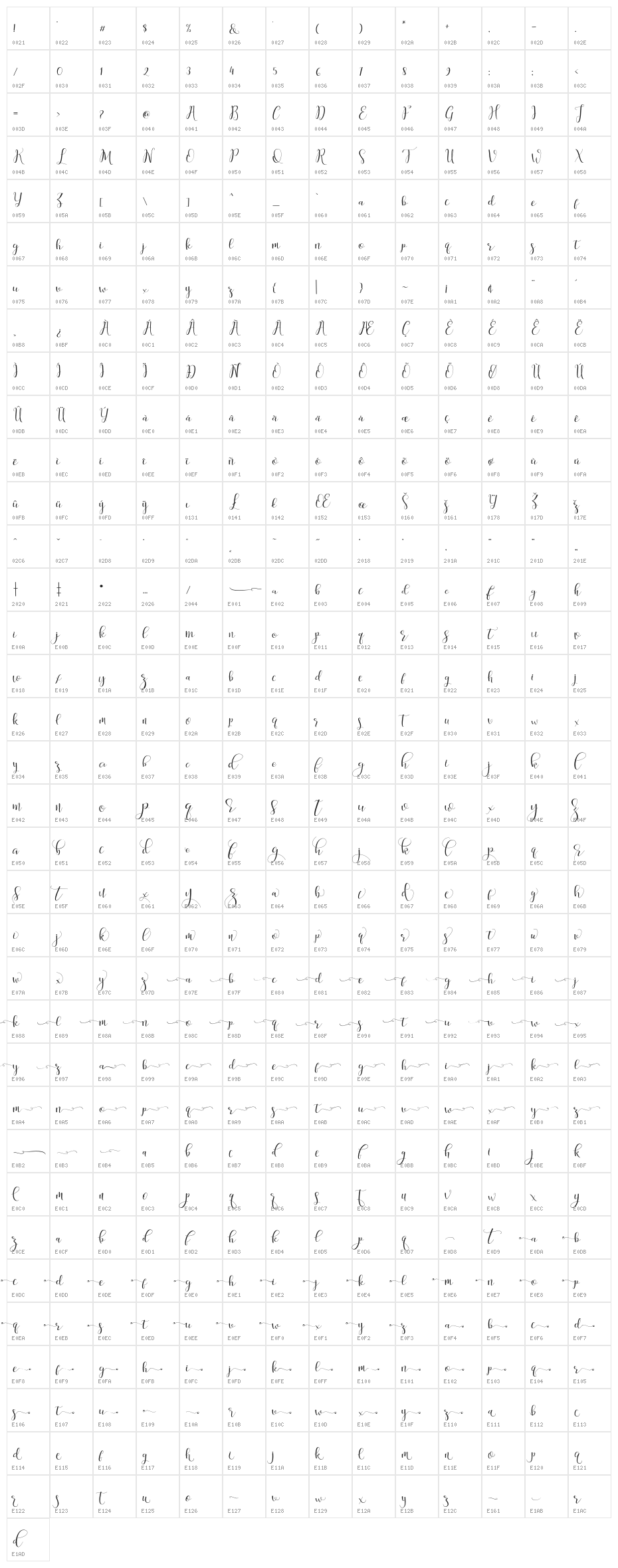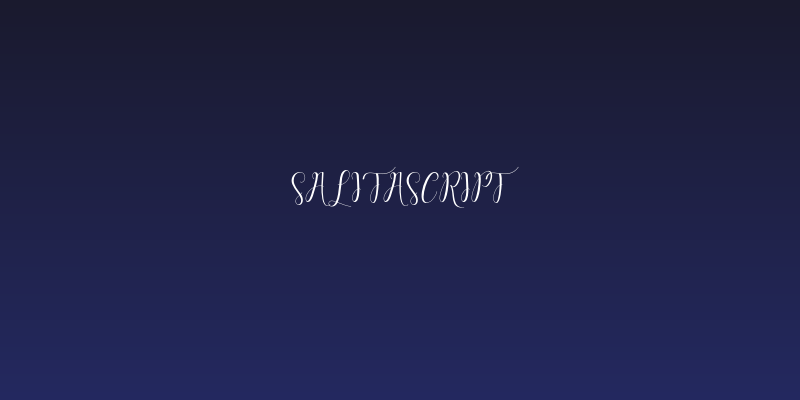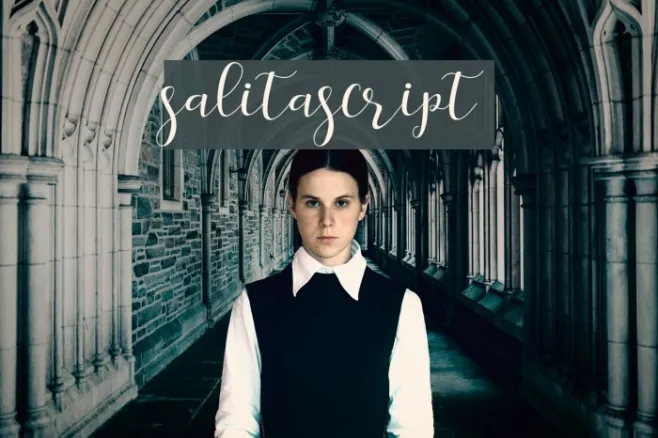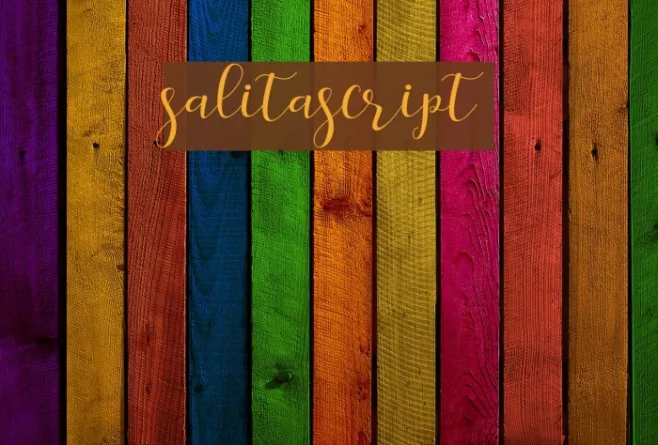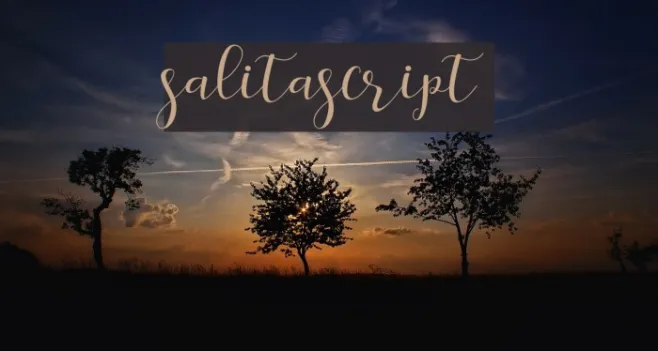
salitascript Font
This elegant script font features flowing, cursive letterforms with intricate swashes and flourishes. The uppercase letters are particularly ornate, with extended loops and curves that add a sense of sophistication and grace. The lowercase letters maintain a consistent style, with smooth connections and a slightly more restrained design. The numerals and special characters complement the overall aesthetic, maintaining the same fluidity and elegance. This font is perfect for projects that require a touch of class and refinement, such as wedding invitations, luxury branding, or high-end product packaging.
| Proposed Projects | Wedding invitations, luxury branding, high-end product packaging. |